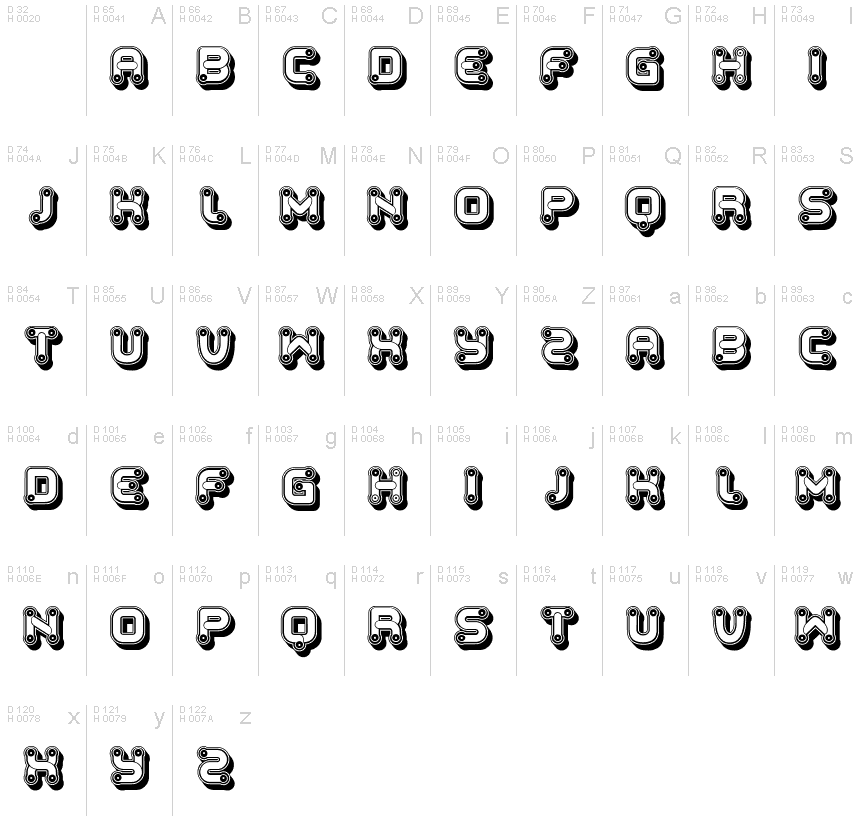
Peureux Hollow Extravagant Regular
Peureux Hollow Extravagant is a 3d decorative typeface designed by Vladimir Nikolic.
It comes in Regular, Hollow, and Hollow Extravagant variants!